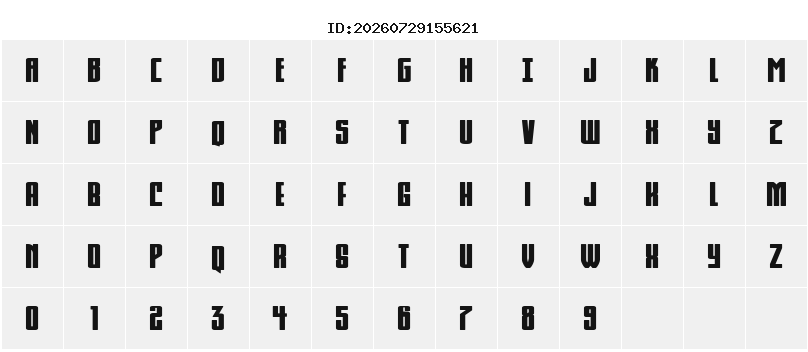
Komikahuna Preview
• Font Name: Komikahuna
• Font ID: Komikahuna
• Full Font Name: Komikahuna
• PostScript Name: Komikahuna
• Designer: Apostrophe (')
About Komikahuna.ttf
Komikahuna.ttf is a modern, elegant sans-serif font designed for ultimate readability and visual harmony. Perfect for branding, headlines, web design, and print materials.